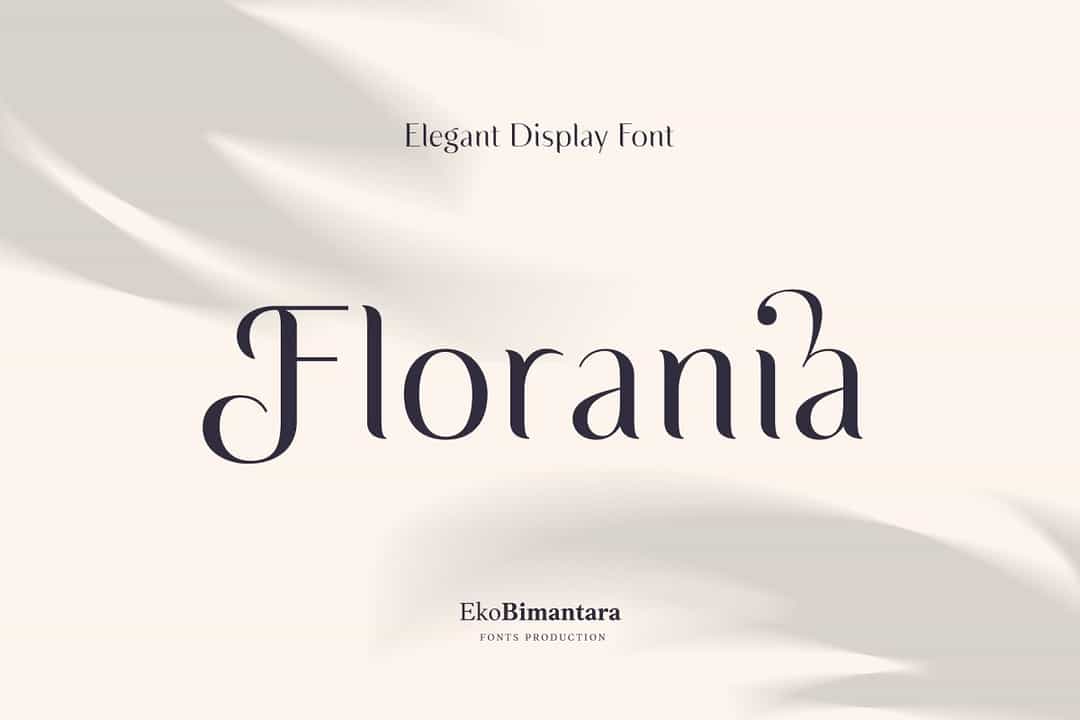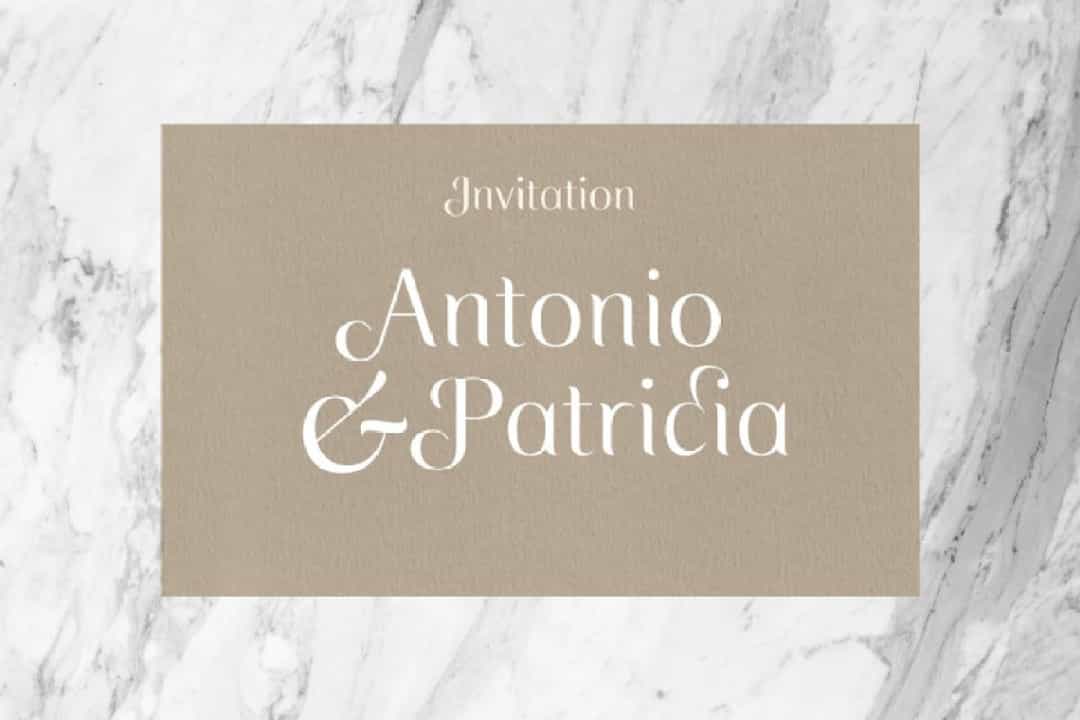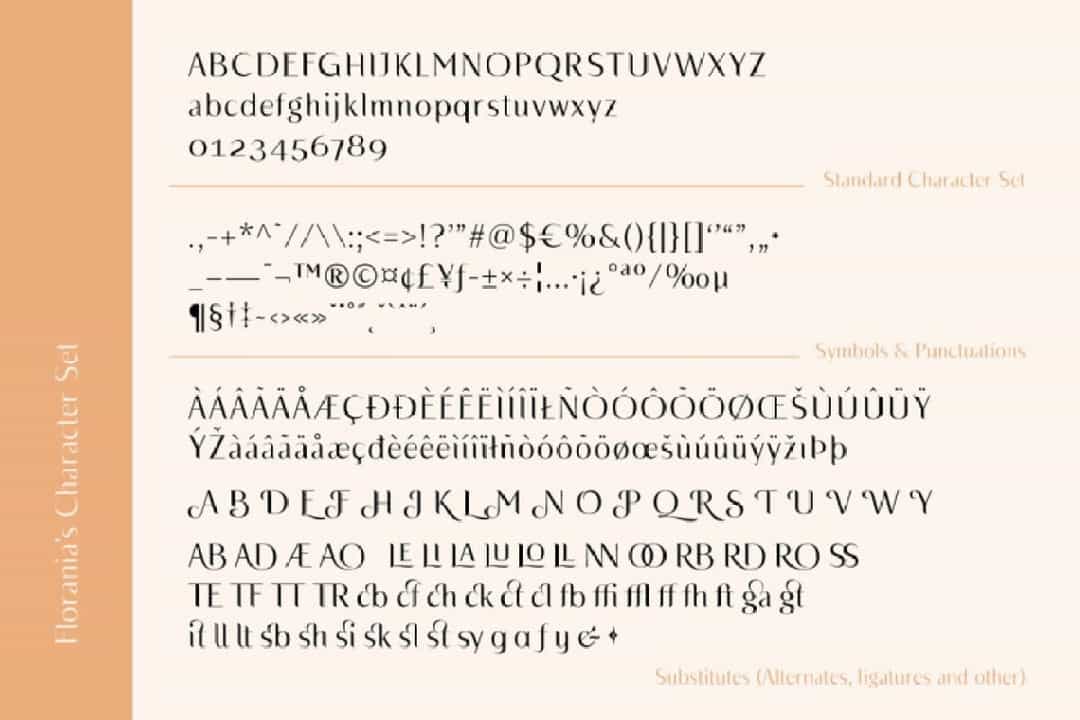
Florania is an elegant and very usable font, with a rather beautiful appearance, well suited for title work. Providing a variety of font choices and Options for ligatures that support Latin alphabet and most of the languages that use this alphabet. Good for titles, good for big size and for short texts. Recommended for large design projects such as logo branding logo websites logo and other similar projects.